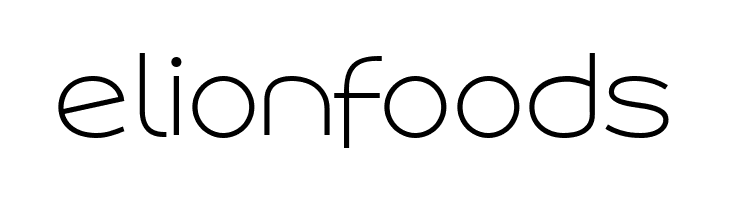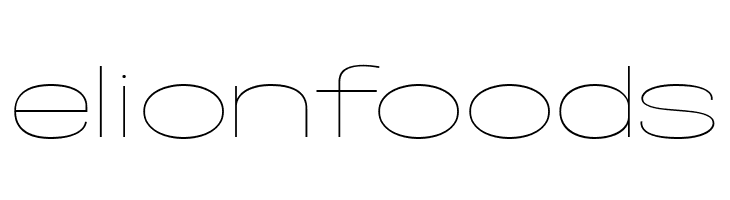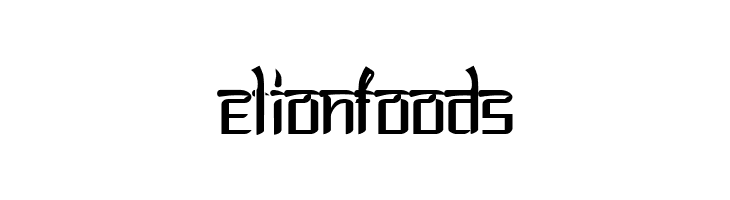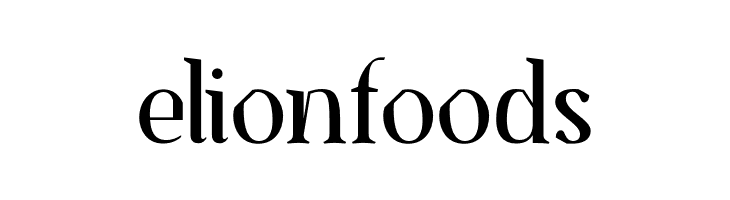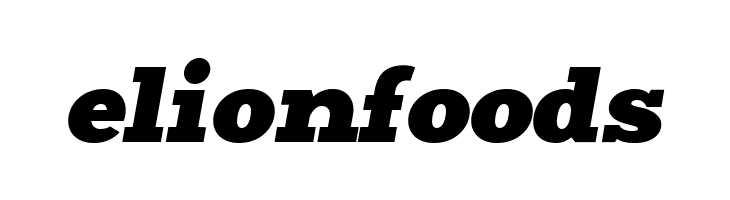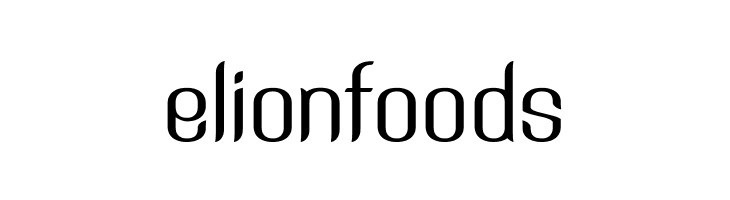
A sleek, modern font with clean lines and a light weight, perfect for contemporary designs.
A geometric and modern font with clean lines and sharp angles, perfect for contemporary designs.
A modern, thin, and minimalist font with geometric forms.
An ultra-light, extra-expanded font with a sleek, modern design.
An ultra-thin, extra-expanded font with a modern, geometric style.
A modern, rounded inline font with a clean and contemporary style.
A modern, angular font with a futuristic and bold design.
A modern serif font with high contrast and sharp serifs, blending elegance with contemporary style.
A bold, italicized font with strong contrast and dynamic style.
A modern, sleek font with rounded edges and geometric structure.